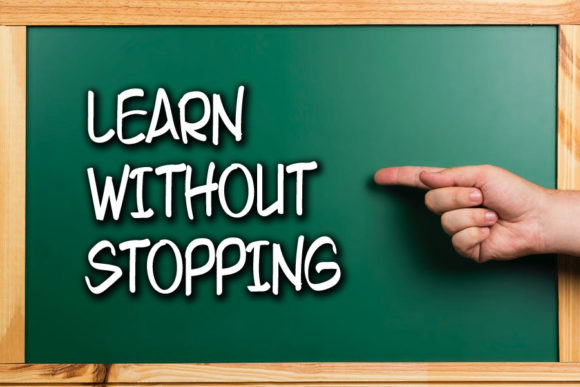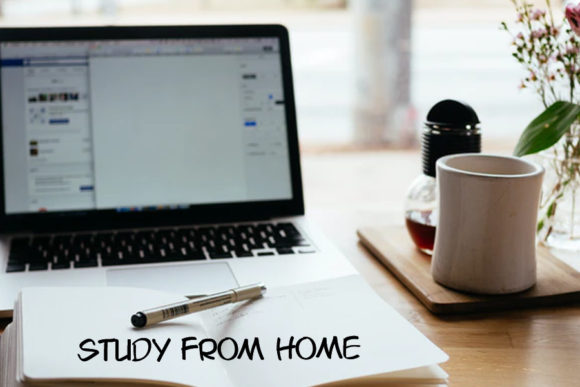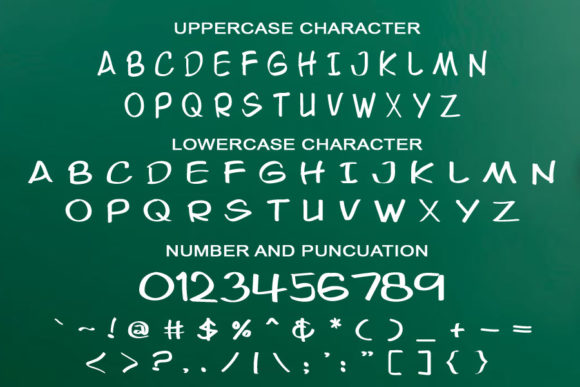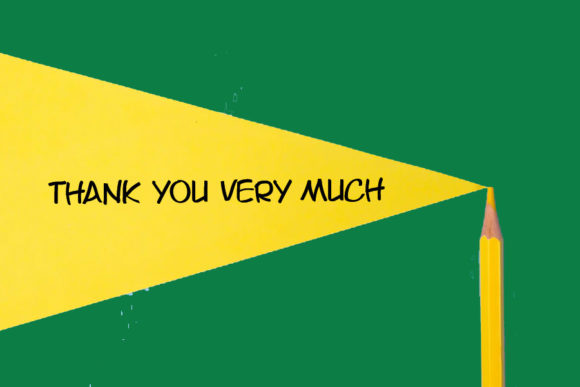
Introducing College Student Font: The Ultimate Choice for Creative Projects
Are you a designer, crafty DIY enthusiast, or simply a social media influencer looking for a unique font to elevate your visual content? Look no further! College Student Font is a trendy, quirky, and cool handwritten font that’s perfect for turning your creative ideas into stunning works of art.
What Makes College Student Font So Special?
College Student Font is a carefully crafted handwritten font that exudes a sense of playfulness and sophistication. Its unique blend of elegance and quirkiness makes it an ideal choice for a wide range of creative projects, from Instagram posts and stories to DIY crafts and calligraphy scripts.
Whether you’re a student looking to add some personality to your notes or a designer seeking a font that will make your work stand out, College Student Font is the perfect choice. Its versatility and charm make it suitable for various design applications, including:
- DIY projects and crafts
- Calligraphy and hand lettering
- Invitations and event materials
Key Features of College Student Font
So, what sets College Student Font apart from other fonts? Here are some of its key features:
- Trendy and Quirky: College Student Font has a unique, hand-drawn feel that’s both trendy and quirky.
- Cool and Elegant: Despite its playful nature, the font exudes a sense of sophistication and elegance.
- Handwritten: The font has a genuine, handwritten feel that’s perfect for adding a personal touch to your designs.
- Versatile: College Student Font can be used for a wide range of creative projects, from digital designs to handmade crafts.
How to Use College Student Font in Your Designs
Using College Student Font in your designs is easy! Here are some tips to get you started:
- Pair it with Other Fonts: Experiment with pairing College Student Font with other fonts to create visually appealing combinations.
- Use it for Headings and Titles: The font’s bold and playful nature makes it perfect for headings and titles.
- Add it to Your Instagram Stories: Use College Student Font to add a personal touch to your Instagram stories and posts.
- Experiment with Colors: Try pairing the font with different colors to create unique and eye-catching designs.
Why Designers and Crafters Love College Student Font
College Student Font has quickly become a favorite among designers and crafters. Here’s why:
- Unique and Creative: The font’s quirky nature allows designers and crafters to add a personal touch to their work.
- Versatile: The font can be used for a wide range of creative projects, from digital designs to handmade crafts.
In conclusion, College Student Font is a trendy, quirky, and cool handwritten font that’s perfect for designers, crafters, and social media influencers. Its unique blend of elegance and quirkiness makes it an ideal choice for a wide range of creative projects. Whether you’re looking for fonts for Instagram or calligraphy scripts for DIY projects, College Student Font is the ultimate choice. So why wait? Download College Student Font today and turn your creative ideas into stunning works of art!